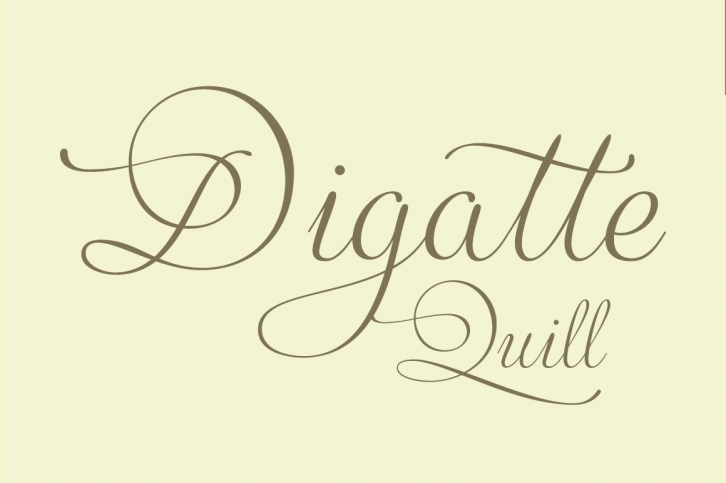
Design: Olcar Alcaide
Digatte font contain 506 glyphs carefully hand drawn, include OpenType variants that may only be accessible via OpenType-aware applications. This versatile and elegant font offer a lot of Ligatures, contextual alternates, swashes, stylistic sets, stylistic alternates, old style figures and ornaments that allows you to mix and match pairs of letters and signs to fit your design.